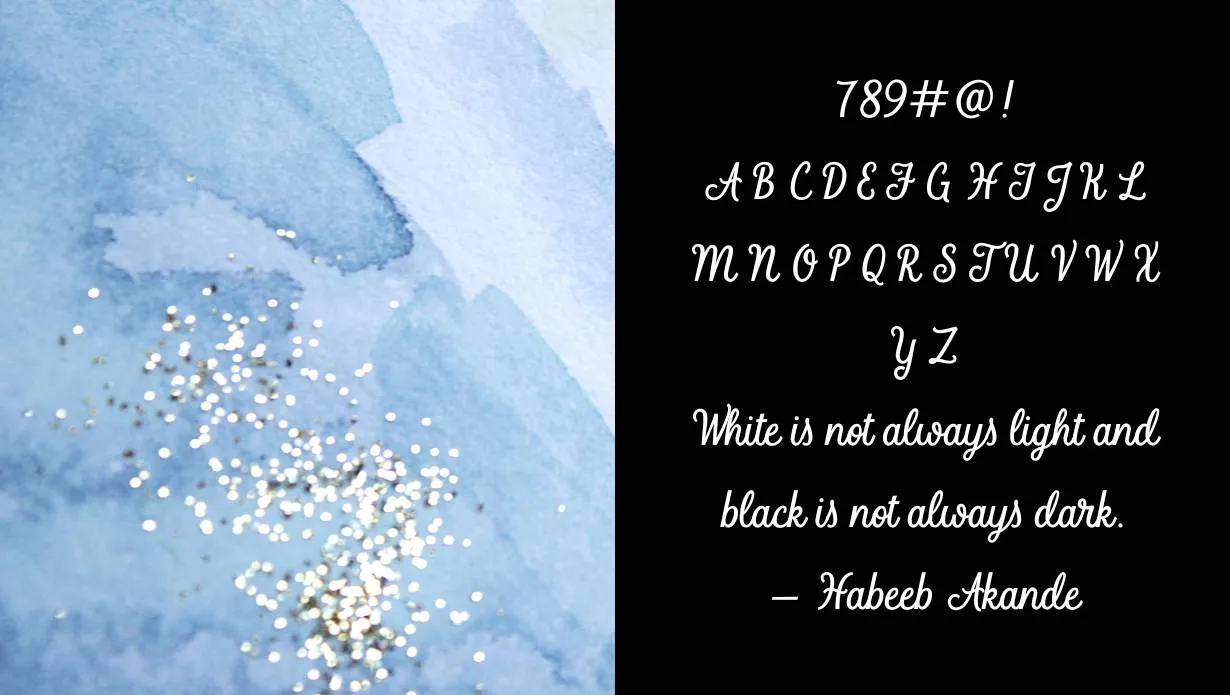
Halston Font is a Script typeface that was created by Indonesian-type designer Danielle Eneh. The font was released in 2013 and has since become one of the most popular fonts used in Indonesia.
This Font is unique for its script and clean design, as well as its support for both Latin and Cyrillic character, sets. You can mix the typeface with others and can be used as a pairing with pinyon script font a basic category font you can download free from our web portal.
| Name | Halston Font |
| Designer | Danielle Eneh |